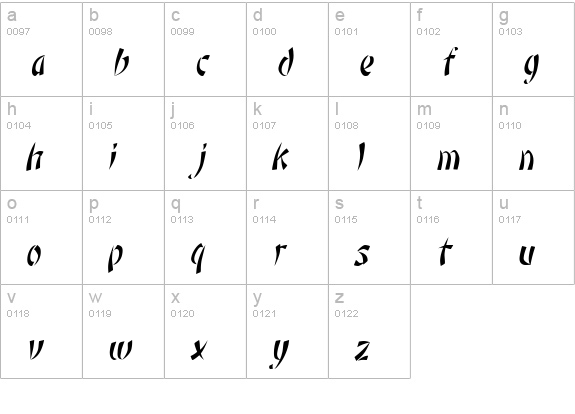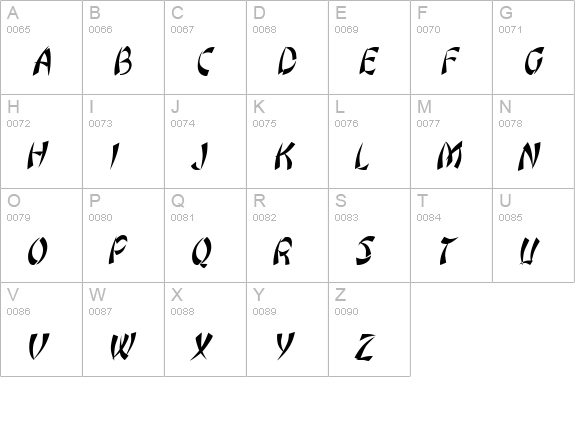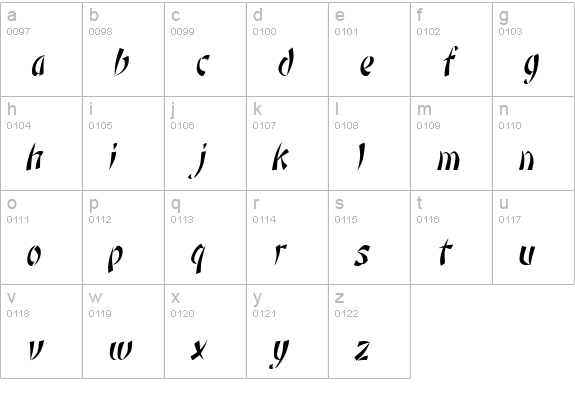
Orient 1Condensed Italic Font Details
Orient 1Condensed Italic is a distinctive, condensed-width, italic variant in the Orient typeface family \xE2\x80\x94 well suited to design and typography projects.
The Orient 1Condensed Italic font exudes elegance and sophistication with its sleek and stylish design. Featuring slanted and condensed letterforms, this font adds a modern touch to any project. Its italic style gives a dynamic and energetic feel, making it perfect for creating eye-catching headlines or emphasizing important text. And the best part? This font is available for free download at FontsMarket.com. Whether you're working on a branding project, designing a website, or creating social media graphics, Orient 1Condensed Italic font is a versatile choice that will elevate your designs. Don't miss out on this opportunity to enhance your creative projects with this beautiful font - download it for free today!